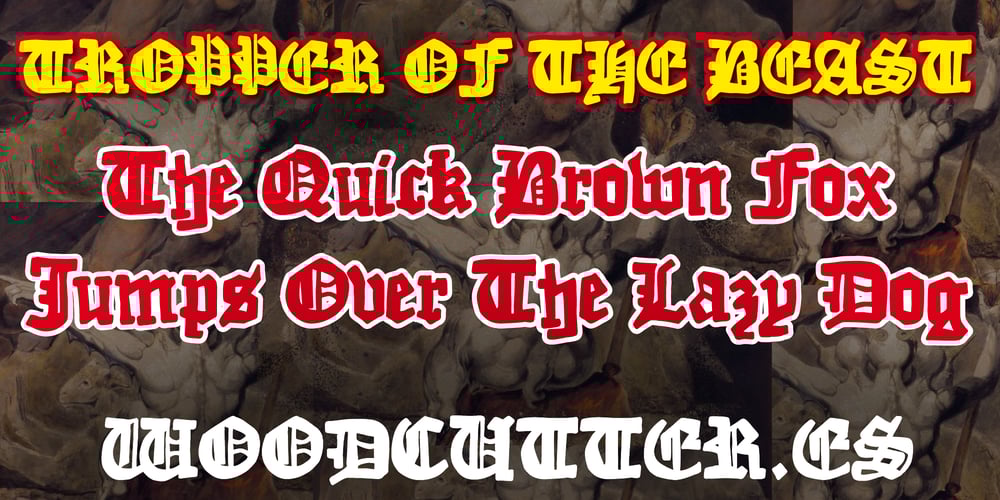
Tropper of the Beast Font Family was designed by Jordi Manero and published by Woodcutter. Tropper of the Beast contains 1 styles and family package options. “Tropper of the Beast” is an imposing Gothic font that combines traditional elegance with a robust and commanding presence. Its letters, characterized by square and defined lines, stand out for their solidity and impactful nature. The accents are carefully integrated, adding a touch of sophistication to the classic Gothic structure. Ideal for titles, logos, and designs seeking to convey strength and authority, “Tropper of the Beast” imbues your texts with a powerful and mystical atmosphere, evoking images of ancient inscriptions and mysterious grimoires. Perfect for projects needing a typeface with presence and distinctive style.